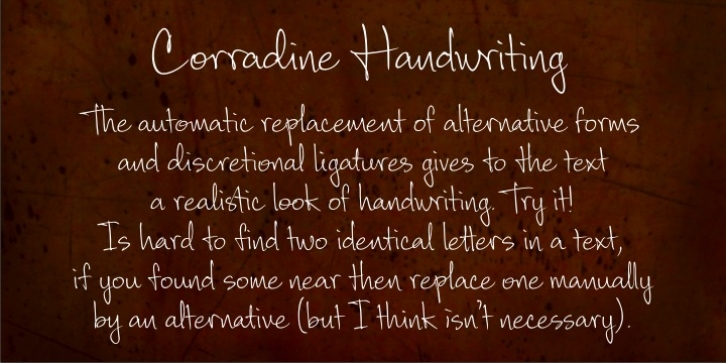
Corradine Handwriting was designed by Manuel Corradine and published by Corradine Fonts. Corradine Handwriting contains 2 styles and family package options.
Corradine Handwriting is based in the handwriting of Manuel Corradine. Its numerous ligatures and stylistic alternatives give to the text a realistic handwriting appearance.
Corradine Handwriting·